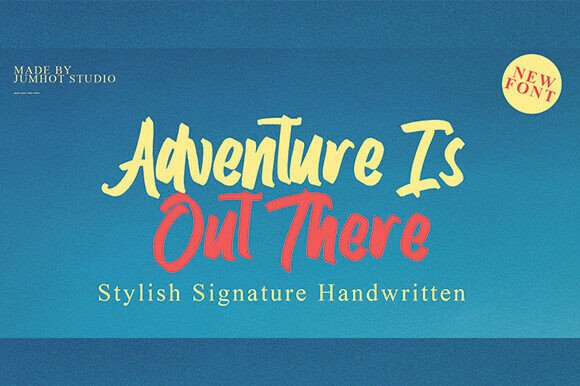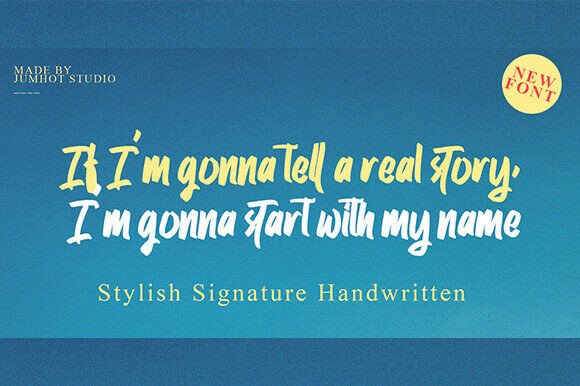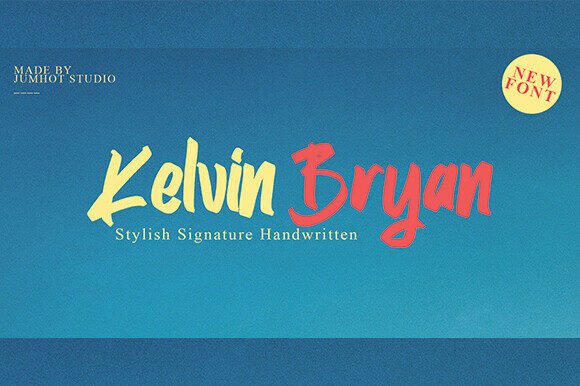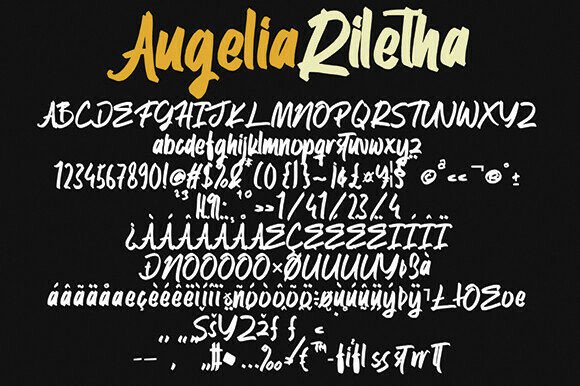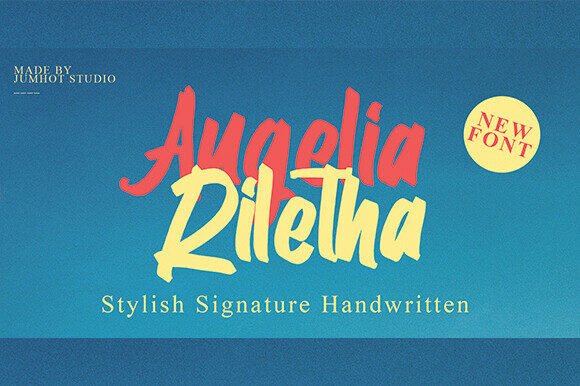
Introducing Augelia Riletha Font: Elevate Your Designs with Elegance and Sophistication
In the world of typography, few fonts manage to strike a balance between elegance and modernity. Augelia Riletha Font is one such exceptional typeface that brings a touch of refined sophistication to any design project. This stylish script font is meticulously crafted to exude both classic charm and contemporary appeal, making it an indispensable tool for designers and crafters alike.
The Essence of Augelia Riletha
Augelia Riletha is more than just a font; it’s an experience. With its graceful strokes, fluid curves, and carefully designed letterforms, this font captures the essence of hand-drawn calligraphy but with a modern twist. Each character is a testament to meticulous craftsmanship, ensuring that every word and sentence flows with a natural elegance that is hard to achieve with digital typography.
One of the standout features of Augelia Riletha is its versatility. Whether you’re working on a logo, an invitation, packaging, or social media graphics, this font seamlessly adapts to various design needs. Its ability to convey a sense of luxury and sophistication makes it particularly suitable for high-end branding projects, while its approachable elegance ensures it remains accessible for more casual, creative endeavors.
Applications of Augelia Riletha
- Logos and Branding: Create a lasting impression with a logo that embodies elegance and modernity. Augelia Riletha’s unique character ensures your brand stands out.
- Invitations and Events: Add a touch of sophistication to your event invitations, wedding cards, or any formal announcement.
- Packaging: Elevate your product packaging with a font that communicates luxury and quality.
- Social Media Graphics: Make your social media posts and stories stand out with a refined aesthetic that captures attention.
Why Choose Augelia Riletha?
Choosing Augelia Riletha for your design projects comes with numerous benefits:
- Elegant and Modern: A perfect blend of traditional calligraphy and modern design.
- Highly Versatile: Suitable for a wide range of design projects.
- Easy to Read: Despite its elegant nature, Augelia Riletha maintains excellent readability.
- Unique and Memorable: Stand out in a crowded design landscape with a font that is both distinctive and captivating.
Tips for Using Augelia Riletha
To maximize the potential of Augelia Riletha, consider the following tips:
- Pair with Simplicity: Let Augelia Riletha be the focal point of your design. Pair it with simpler fonts or clean backgrounds to highlight its elegance.
- Experiment with Sizes: Play with different sizes to create visual hierarchy and emphasize key messages.
- Utilize Ligatures: Take advantage of the font’s ligatures for a more authentic, hand-crafted feel.
- Color Matters: Enhance the font’s beauty with a thoughtful choice of color that complements your design’s overall aesthetic.
Augelia Riletha Font is a remarkable addition to any designer’s toolkit. Its elegant strokes, fluid curves, and modern charm make it the perfect choice for those looking to add a touch of sophistication and refinement to their projects. Whether you’re a professional designer or a crafting enthusiast, Augelia Riletha offers the versatility and visual appeal needed to elevate your designs to the next level. Discover the beauty and potential of Augelia Riletha and let your creativity shine with elegance.